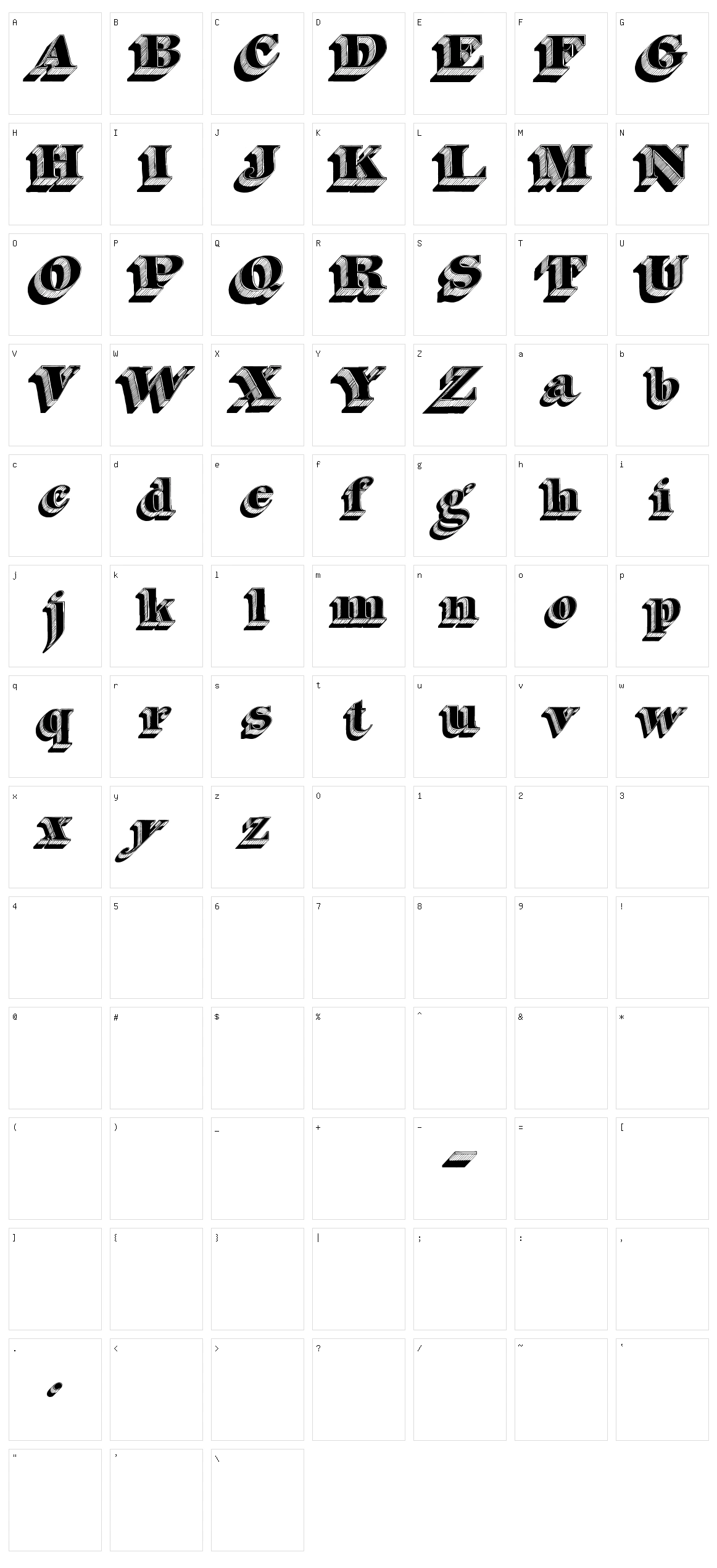
The free font Silvestre Relief is carefully designed by imagex, showcasing a thoughtful balance of creativity and usability and falls under the Retro font style. When you download the ZIP file, it contains only 114.92 KB of font files, making it lightweight and quick to download. Please review the license details below to understand permitted usage and distribution rights. If license information is not available, we recommend using this font for personal projects only or contacting the author directly for commercial usage permissions.